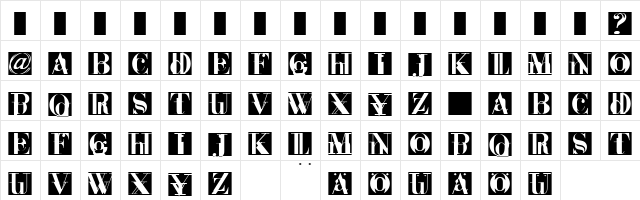
BodoniTwinsCaps Regular
Design Context for BodoniTwinsCaps Typeface
BodoniTwinsCaps is a composed and adaptable typeface that performs quietly and consistently across a wide range of design contexts.